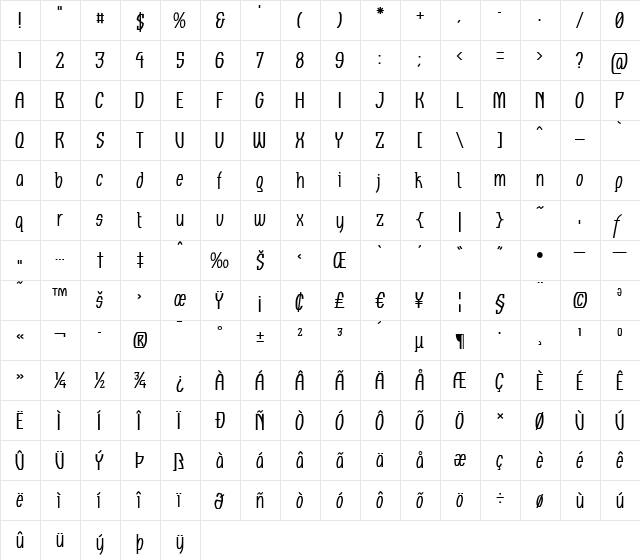
Komikaze Regular
| Foundry | Apostrophic Laboratories |
| Designer | Apostrophe (') |
Design Context for Komikaze Typeface
Komikaze takes a measured approach to typography — its balanced proportions and neutral character make it a reliable workhorse for both digital and print work.